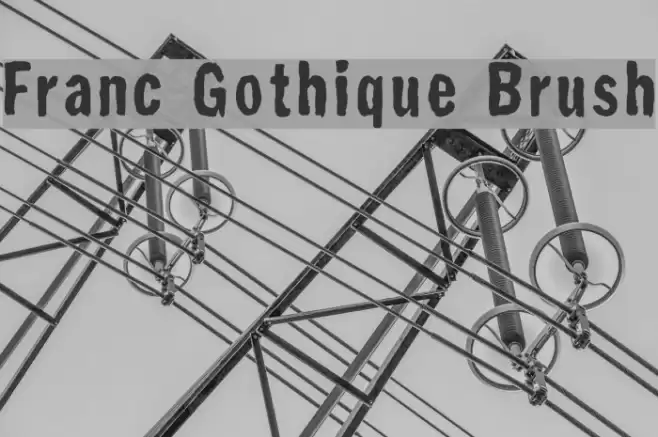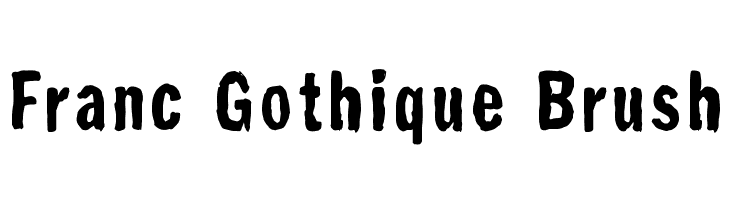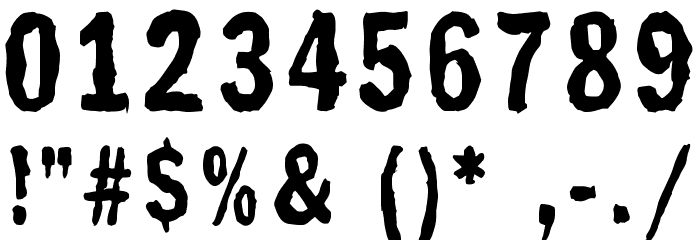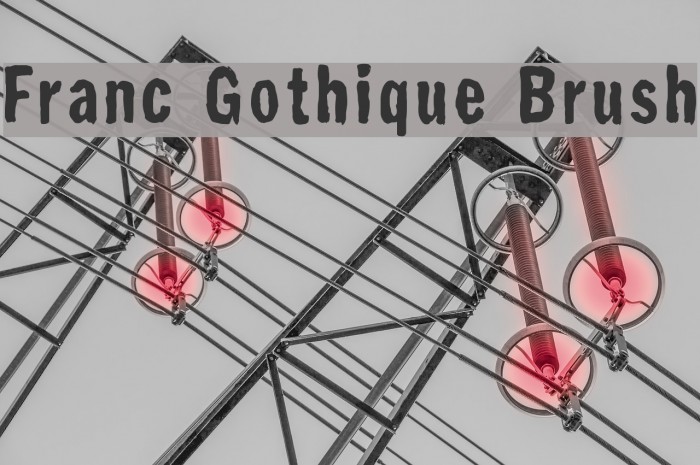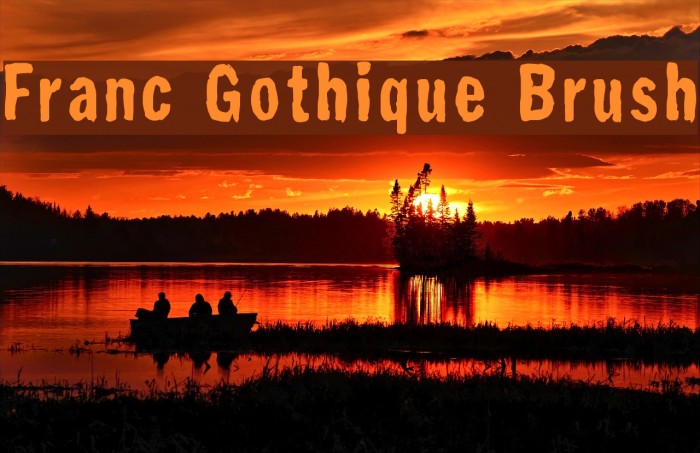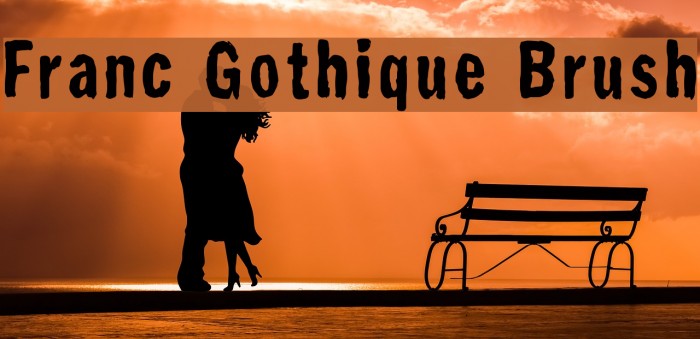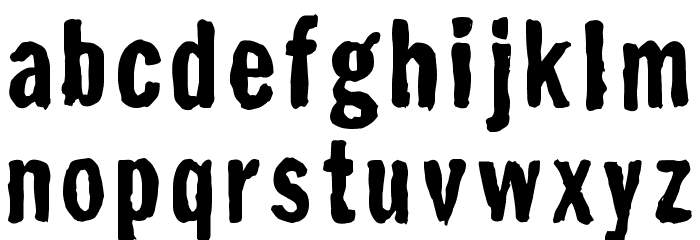
Franc Gothique Brush Font
Franc Gothique Brush Description
This font features a bold, brush-like texture that gives it a rugged and handcrafted appearance. The characters are unevenly shaped, with a slightly distressed look that adds to its organic feel. The uppercase and lowercase letters maintain a consistent style, with thick strokes and rough edges. Numbers and special characters follow the same aesthetic, providing a cohesive look across all glyphs. This font is ideal for projects that require a touch of authenticity and a vintage or rustic vibe. Its boldness ensures high visibility, making it suitable for impactful designs.
A bold, brush-textured font with a rugged, handcrafted appearance from Distorted Eroded fonts.
- Proposed Projects: Ideal for branding, posters, packaging, and any design needing a vintage or rustic touch.
- Overall Style: Vintage